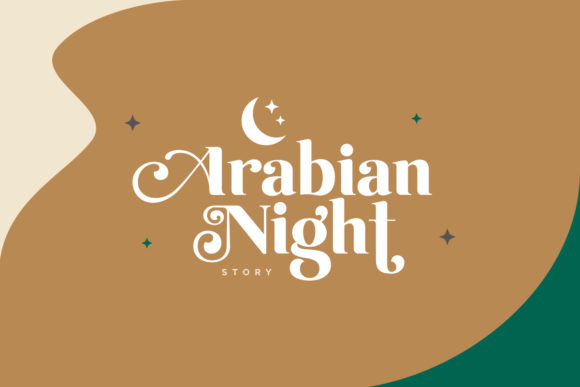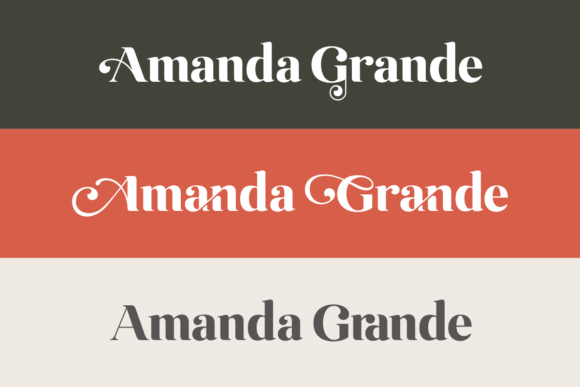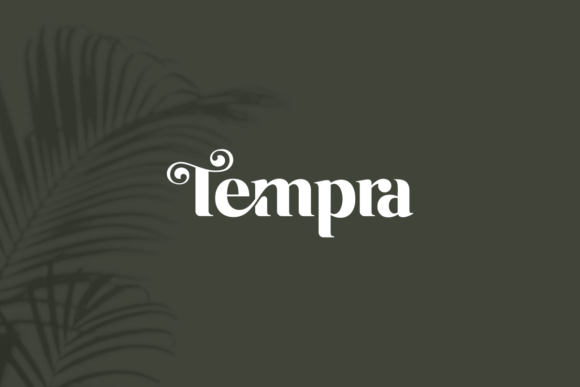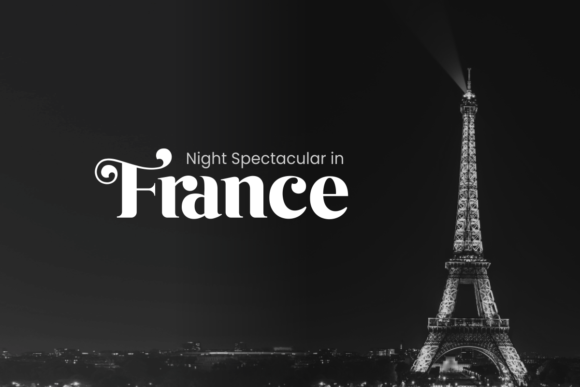
The Emirates Font: Elevating Your Designs with Elegance
I’ll never forget the time I was working on a wedding invitation project, and my client specifically asked for a font that exuded luxury and sophistication. I scoured the internet, trying out various fonts, but none seemed to fit the bill. That was until I stumbled upon the Emirates font. Its beautiful, curved serif lines and special ligatures instantly captured my attention, and I knew I had found the perfect fit. In this article, I’ll share my experience with the Emirates font, its features, and how to make the most of it in your designs.
- ✨ The Emirates font boasts stunning curved serif lines that add a touch of elegance to any project.
- ✅ Its special ligatures make it stand out from other serif fonts, giving your designs a unique flair.
- 💫 The font is incredibly versatile, making it suitable for a wide range of projects, from wedding invitations to branding and advertising.
While the Emirates font is exceptional, there are a few minor quirks to be aware of:
- 🤔 Some users may find the font’s curves a tad too ornate for certain projects, such as body text or lengthy articles.
- ⚠️ As with any font that features ligatures, it’s essential to ensure compatibility with various platforms and software to avoid formatting issues.
The Emirates font was designed with inspiration from traditional Arabic calligraphy and the elegance of serif typography. The designer aimed to create a font that would evoke a sense of luxury and sophistication, while still being versatile and easy to read. The result is a beautiful, unique font that adds a touch of elegance to any project.
| What type of projects is the Emirates font best suited for? | The Emirates font is versatile and can be used for a wide range of projects, including wedding invitations, branding, advertising, and editorial design. |
| Does the Emirates font support OpenType features? | Yes, the Emirates font features OpenType ligatures and stylistic alternates, making it a great choice for designers who want to add an extra touch to their projects. |
| Is the Emirates font easy to read? | Yes, the Emirates font is designed to be elegant and easy to read, making it suitable for both headings and body text. |